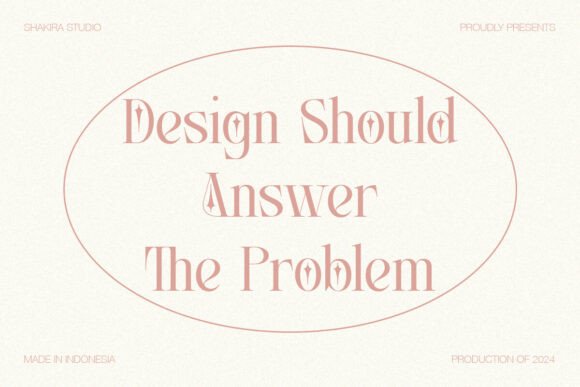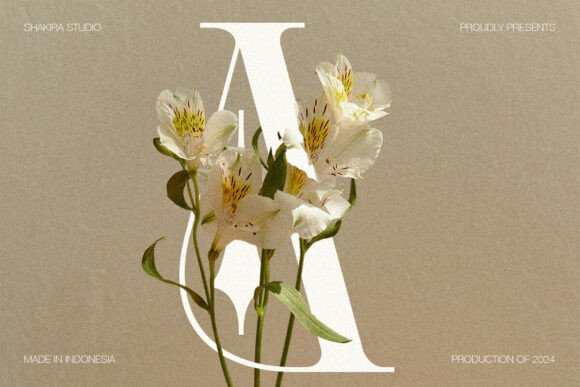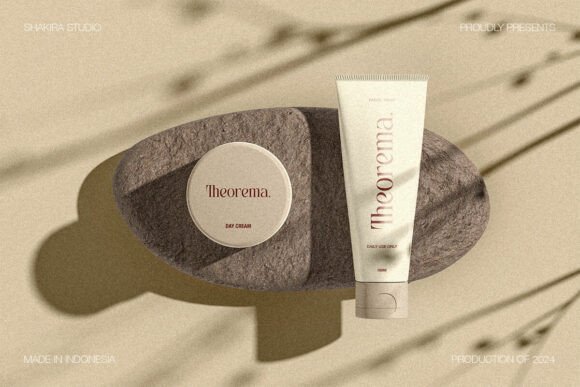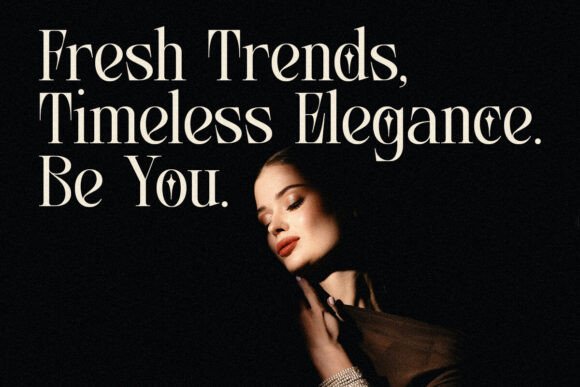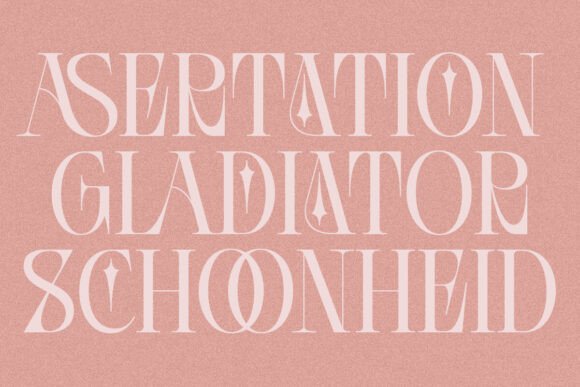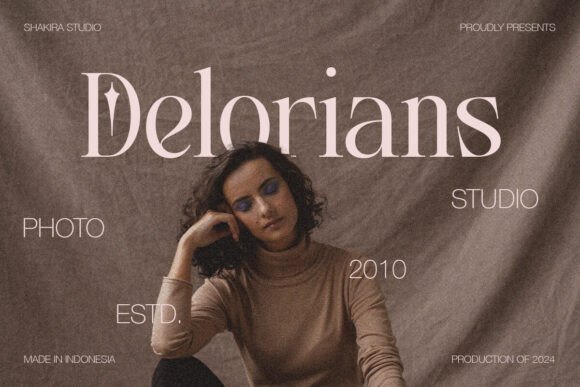
The Ausle Font: Elevate Your Designs with Elegance and Sophistication
I’ll never forget the design project that had me searching for the perfect font. I was working on a luxury brand’s brochure, and my client wanted a font that exuded elegance and style. After hours of scrolling through font libraries, I stumbled upon Ausle – a sophisticated serif font that instantly caught my eye. In this article, I’ll share my experience with Ausle, its features, and how to make the most of this beautiful font in your designs.
A Personal Review of Ausle
What I Love About Ausle ✨
• ✅ Luxurious and modern character that adds a touch of sophistication to any design
• ✅ Stylish alternates and ligatures that allow for creative freedom and personalized designs
• ✅ Highly versatile and suitable for a wide range of creative projects, from posters to print materials
• ✅ Easy to read and works well in both headings and body text
• 🤔 Some users may find the font a bit too ornate for certain projects, such as casual or playful designs
The Story Behind Ausle
Ausle was designed by a team of typographers who wanted to create a font that embodied elegance and sophistication. Inspired by classic serif fonts, Ausle features a modern twist with stylish alternates and ligatures. The design team aimed to create a font that would be versatile and suitable for a wide range of creative projects, from luxury brands to editorial designs.
What is Ausle font best used for? Ausle is best used for designs that require a touch of elegance and sophistication, such as luxury brands, editorial designs, and high-end advertising.
With Ausle, you can elevate your designs and add a touch of luxury and sophistication. Its versatility and range of OpenType features make it an excellent choice for designers, crafters, and creative hobbyists. Whether you’re working on a luxury brand’s brochure or a personal project, Ausle is sure to make a lasting impression.